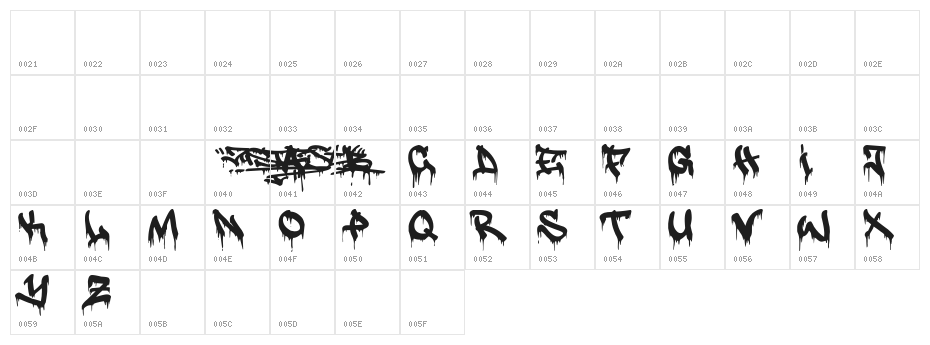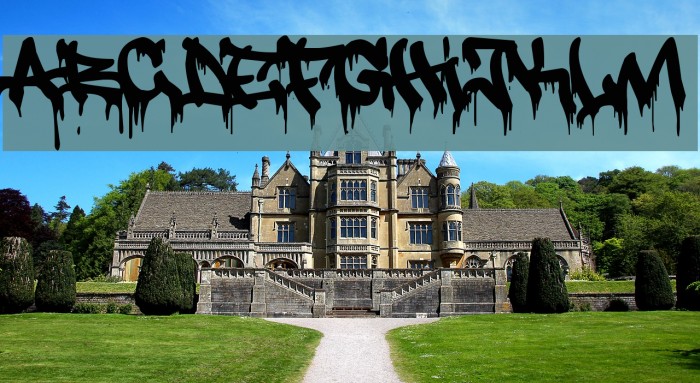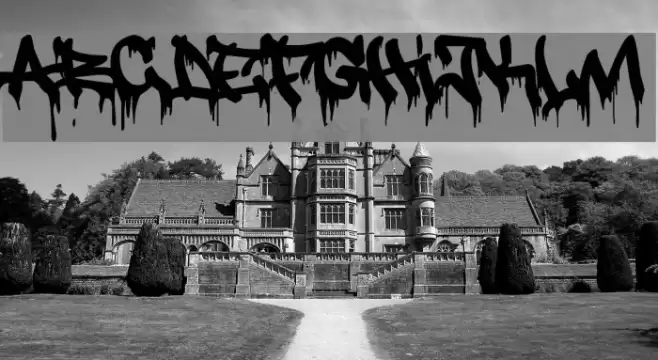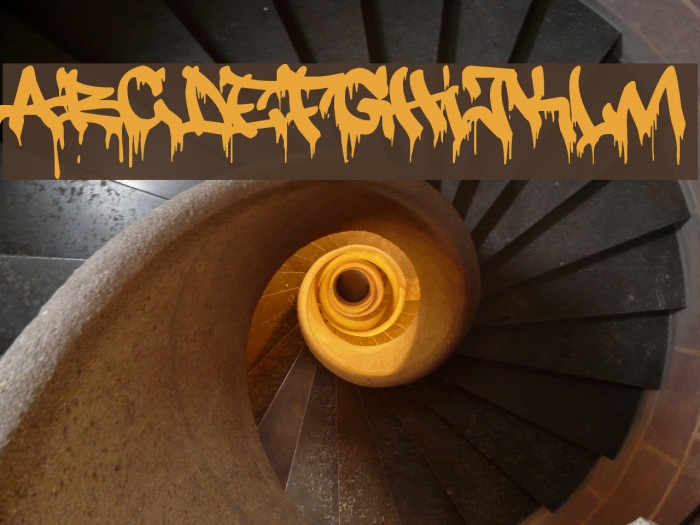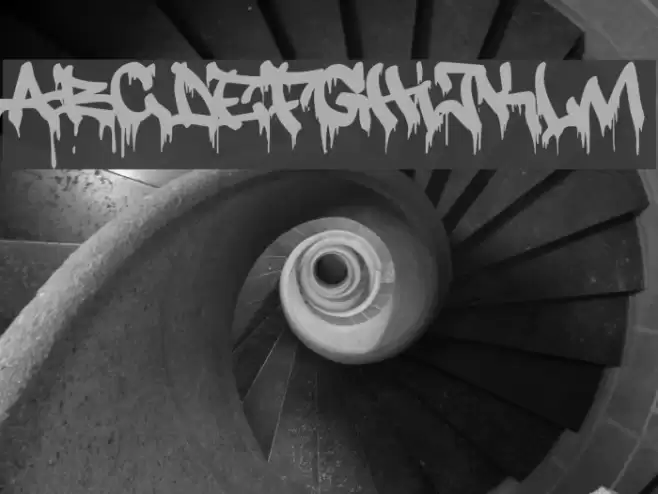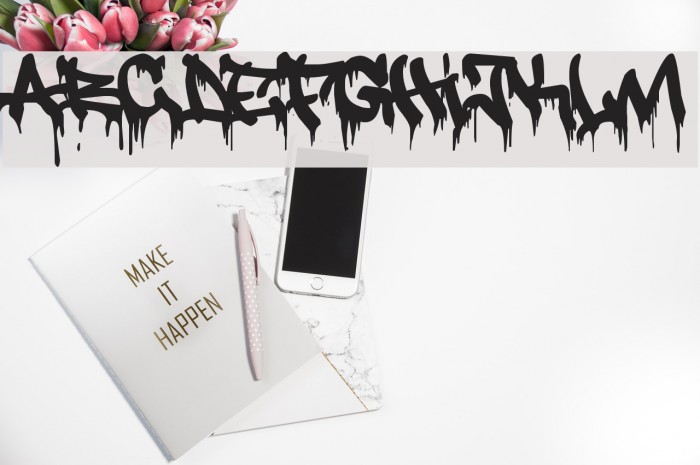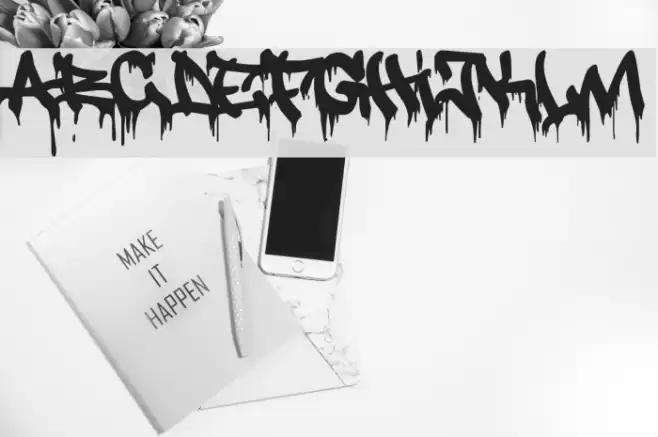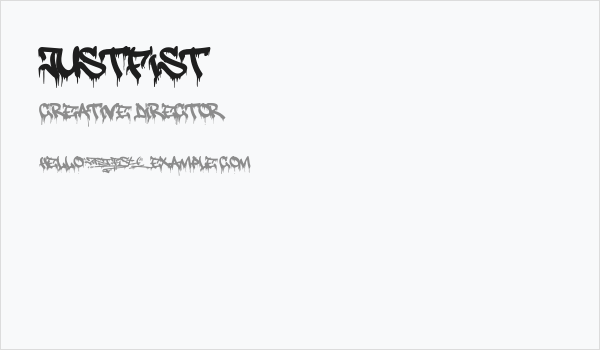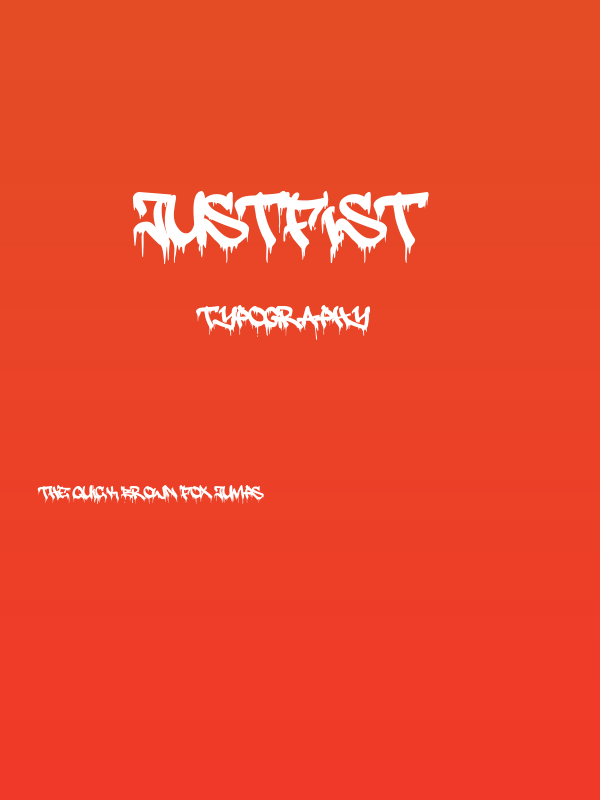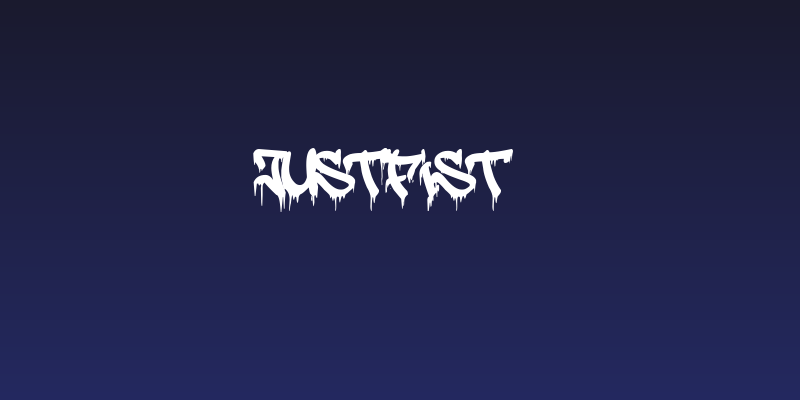
justfist2 Font
justfist2 Description
This font features a bold, graffiti-inspired style with dripping effects that give it a raw, urban feel. The characters are highly stylized, with sharp angles and exaggerated forms that mimic the look of spray paint. The uppercase letters are particularly striking, with a sense of movement and energy. The lowercase letters maintain the same edgy aesthetic, ensuring consistency throughout the typeface. The numbers and special characters are equally dynamic, making this font suitable for projects that require a strong, rebellious visual impact.
| Overall Style | Urban, Edgy, Graffiti |
| Use Case | Logos, Posters, Album Covers |
| Proposed Projects | Ideal for street art designs, urban-themed posters, music album covers, and edgy branding projects. |